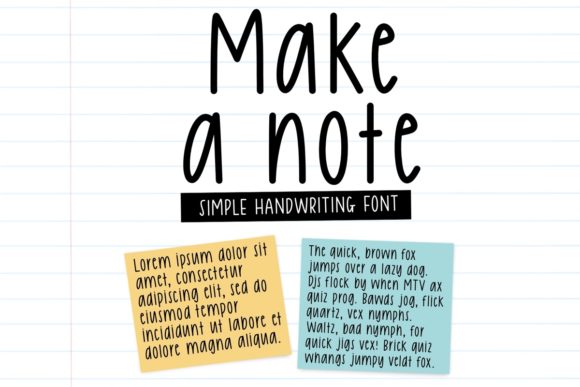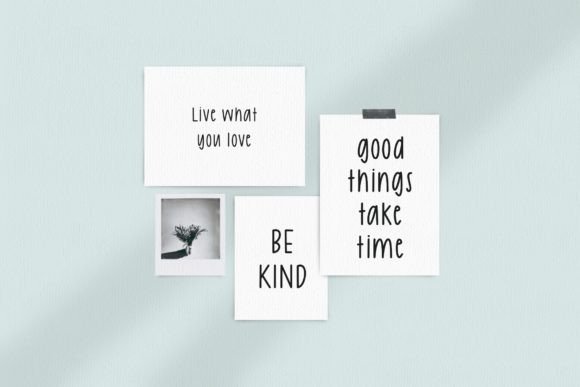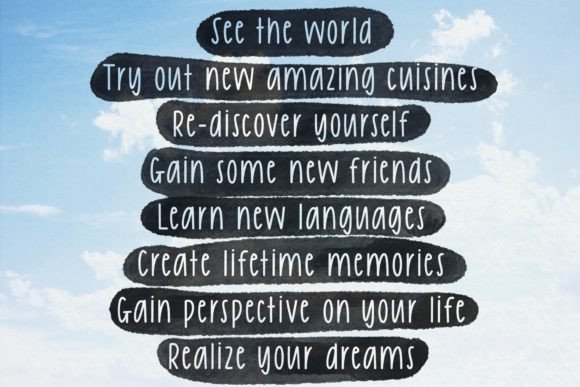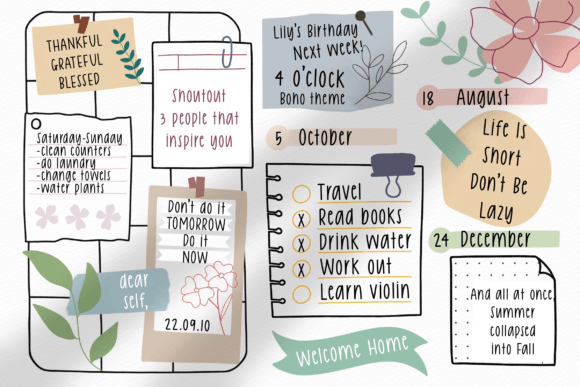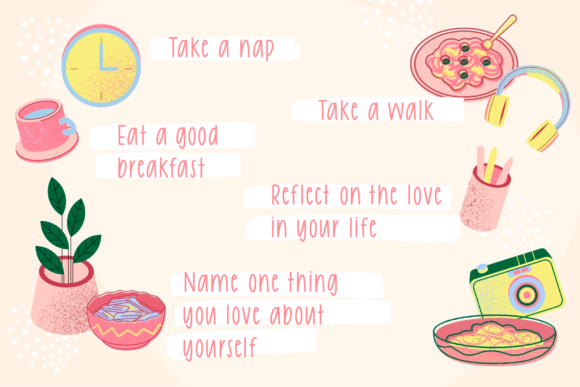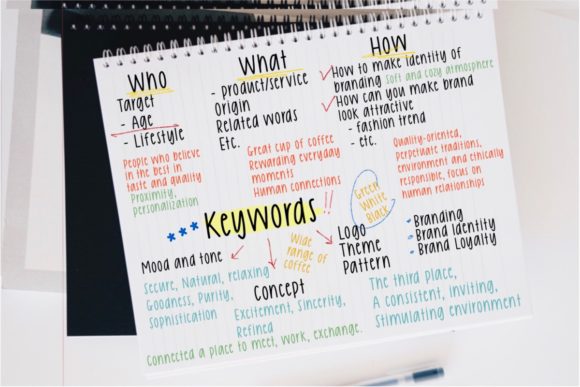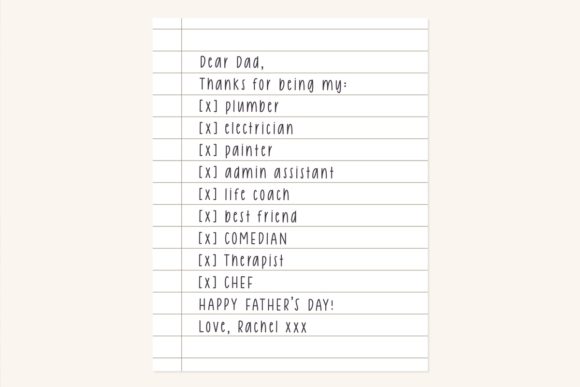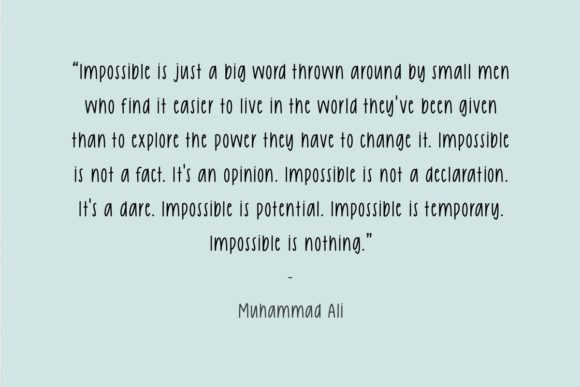
Make a Note Font
Make a Note is a classic handwritten font. This versatile script font has a wide range of applications ranging from greeting cards to kids’ crafts, and is guaranteed to add a sweet touch to your next design.